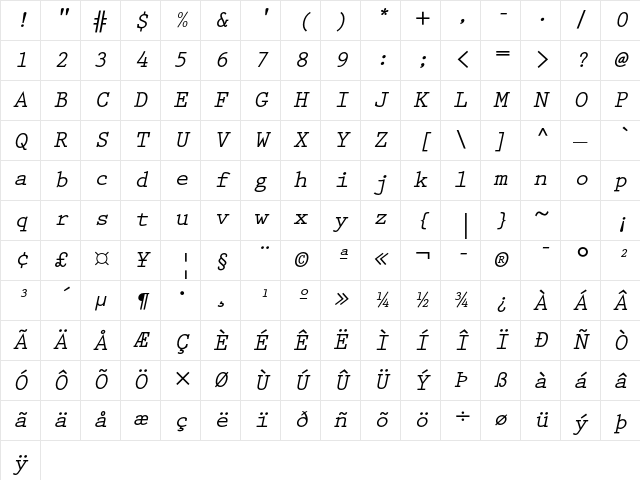
Prestige Elite Std Bold Slanted
Style: Bold Slanted
Designer: Howard Kettler
Design Context for Prestige Elite Std
Prestige Elite Std is a composed and adaptable typeface that performs quietly and consistently across a wide range of design contexts. The slanted form adds forward momentum and visual energy. Its bold stroke weight gives it real presence on the page.
Pro Tip: Use Prestige Elite Std for emphasis, pull quotes, and subheadings where its slanted energy can add rhythm to the layout.